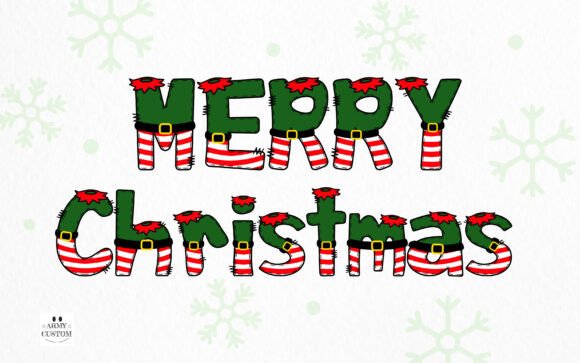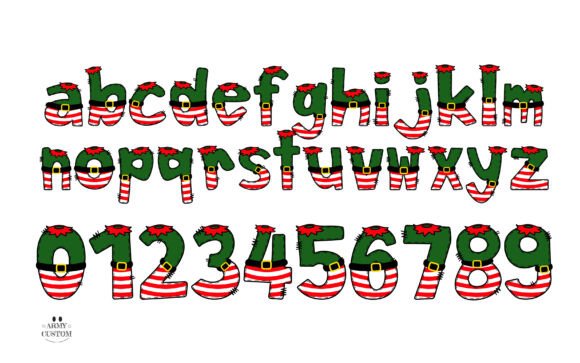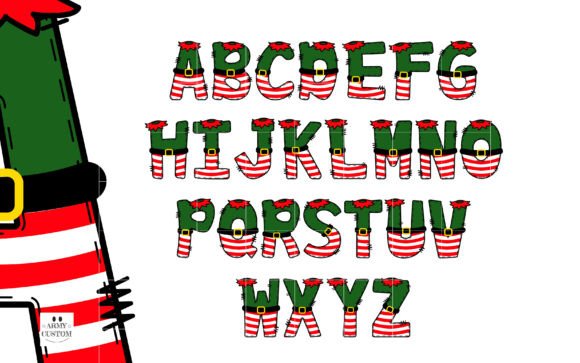
Introduction to Elf Squad Candy Stripe Font
Are you ready to deck the halls with a dash of holiday magic? For designers, there’s nothing quite like the thrill of bringing a creative project to life. And what better way to do so than with a font that embodies the whimsy and wonder of the season? Enter the Elf Squad Candy Stripe Font, a festive and full-color design resource that’s sure to put a smile on your face.
With its bold, red-and-white candy cane stripes, jolly red collars, and classic elf-green accents, this font is the perfect addition to any holiday design. Whether you’re crafting greeting cards, party invites, or social media graphics, the Elf Squad Candy Stripe Font is sure to add a merry touch. And with its high-quality design, you can trust that your projects will shine with a transparent background that’s simply magical.
Key Features of Elf Squad Candy Stripe Font
- Unique Candy Stripe design, perfect for creative projects that require a playful and festive touch.
- Transparent background, allowing for easy integration into various design elements and backgrounds.
- Includes 6 different font styles, each with its own unique twist on the Candy Stripe design.
- Perfect for holiday-themed projects, children’s books, and other creative endeavors that require a fun and whimsical touch.
Honest Review: Elf Squad Candy Stripe Font
I recently stumbled upon the Elf Squad Candy Stripe Font and was excited to give it a try. As a designer, I’m always on the lookout for unique and high-quality fonts to enhance my creative projects.
First impressions are everything, and I was pleased to see that the font comes with a transparent background, making it easy to use on various design resources. The Candy Stripe design is playful and fun, perfect for projects that require a touch of whimsy.
- ✨ Works well in titles, headings, and body text
- ✨ Can be used in various design applications, from digital to print
However, I did encounter a few limitations. The font may not be suitable for formal or professional projects, as it can come across as too playful. Additionally, the font’s design may not be as versatile as some other fonts on the market.
Overall, I’m impressed with the Elf Squad Candy Stripe Font. It’s a great addition to any designer’s toolkit, and I would definitely recommend it for creative projects that require a fun and playful touch. ⚠️ Just be mindful of the font’s limitations and use it accordingly.
The Elf Squad Candy Stripe Font is a high-quality, free download design resource perfect for creative projects. With its unique and playful design, it’s an excellent choice for designers looking to add a touch of whimsy to their work.
For the best results, use the Elf Squad Candy Stripe Font on a transparent background to allow the playful stripes to shine. You can also combine it with other fonts for a unique and creative look.
The Elf Squad Candy Stripe Font is perfect for:
- Children’s party invitations and decorations
Yes, the Elf Squad Candy Stripe Font is designed to work seamlessly with a transparent background. This makes it perfect for creative projects that require a high level of design flexibility, such as graphic design, web design, and digital art.